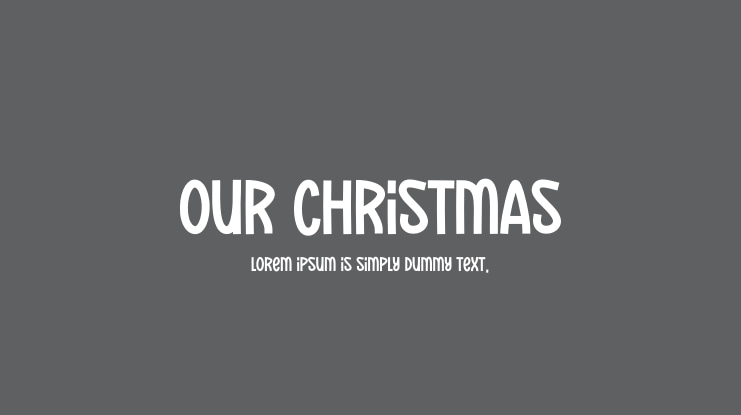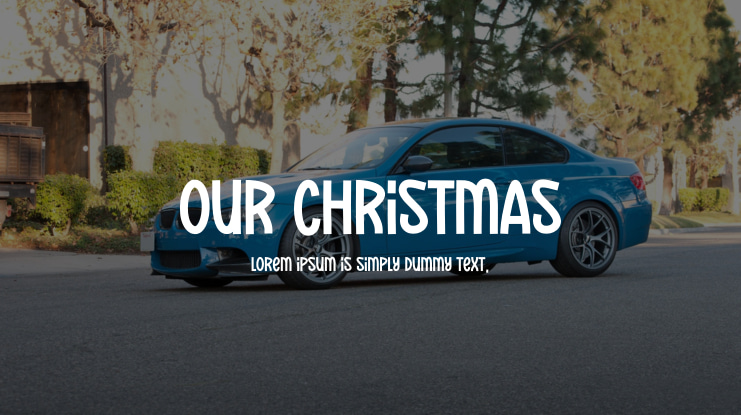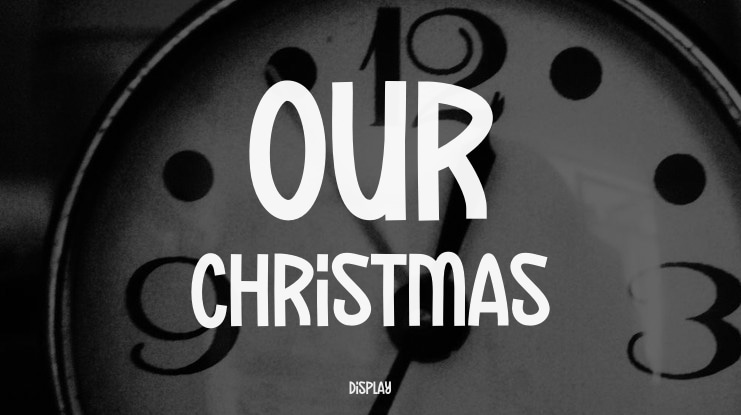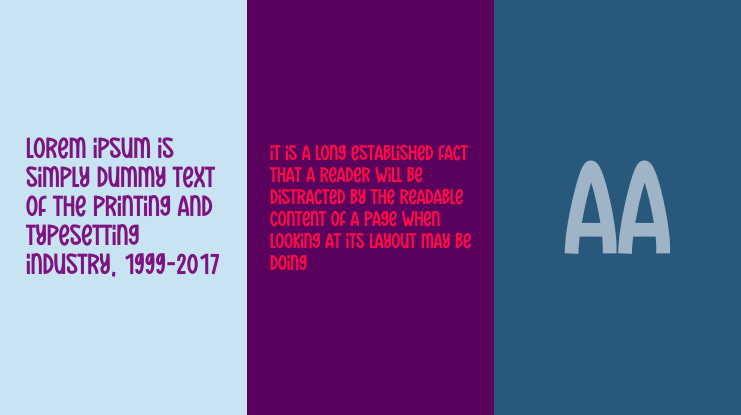
Our Christmas Font
Introducing our special and creative products designed just for you! Our products are guaranteed to give you an extraordinary experience. With the latest style letters, they are perfect for various purposes such as wall displays, wedding invitations, social media post logos, advertisements, product packaging, product designs, labels, photography, watermarks, invitations, stationery, and any project that requires tasteful handwriting.